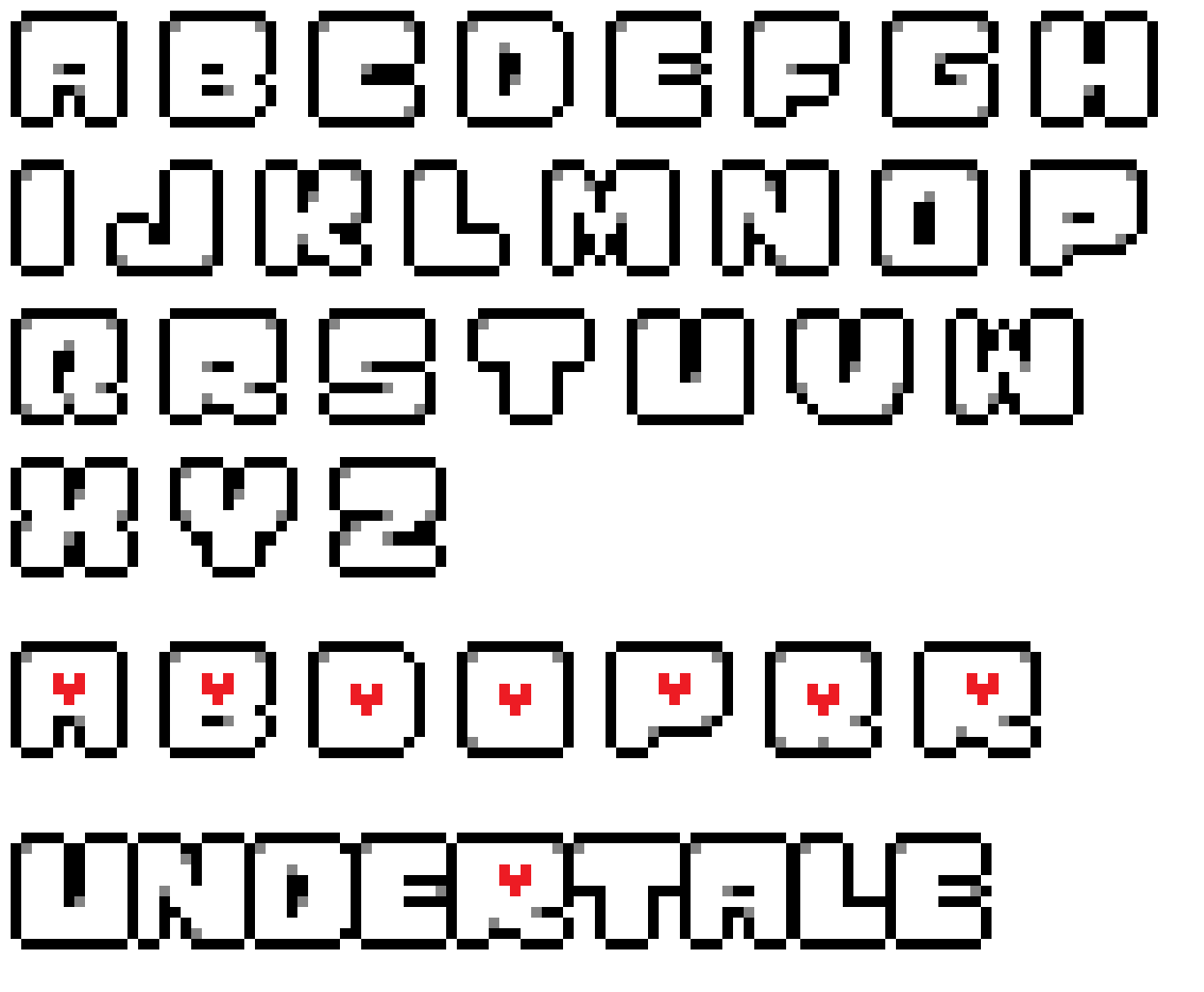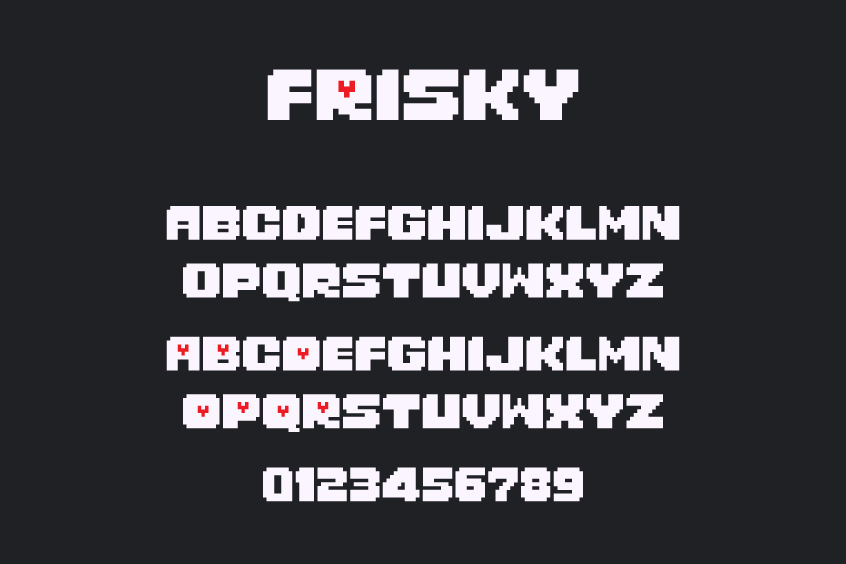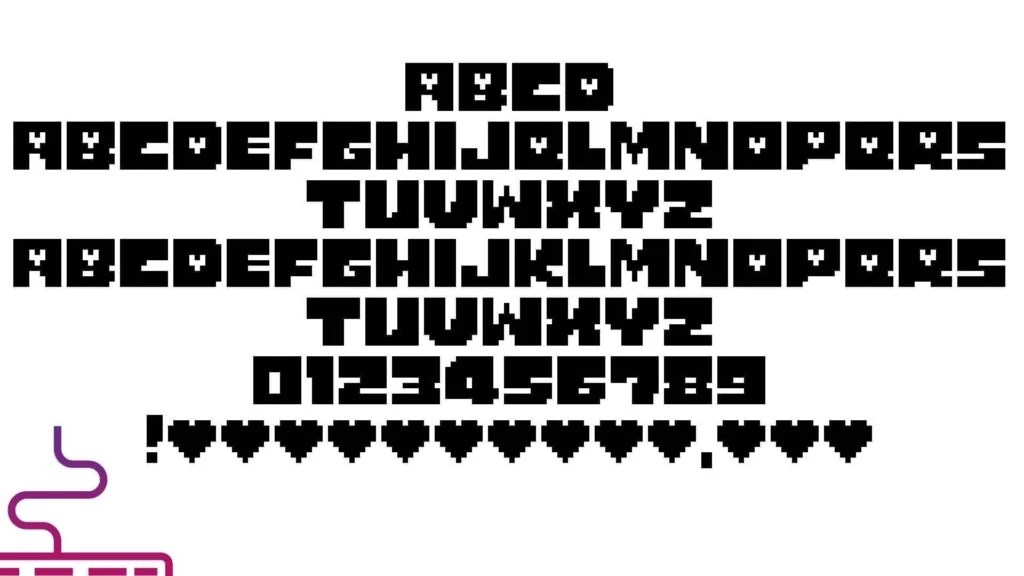
What Font Is Undertale Text In . The exact undertale fonts are, as follows: The font used for the logo of the undertale video game is very similar to a 3d font family the monster friend font. Determination mono web font is a undertale font and was created on dec 17, 2015. Since then, it has been downloaded 105,508. Undertale display font is a gaming font that is seen being used in many video games. It's pixelated because of the size it's set to. It says space every time you press space bar. Comment by 16th july 2020. Created on 18th june 2018. Papyrus size 12, scaled up: First produced in 2015 for the logo of the popular game “undertale,” it has since become a standard font for many online games. This is the font used when sans the sansational skeleton talks! Last edited on 6th december 2018. This font comes with two unique styles including fore and back. The font was produced for the first time in 2015.
Papyrus size 12, scaled up: First produced in 2015 for the logo of the popular game “undertale,” it has since become a standard font for many online games. The font used for the logo of the undertale video game is very similar to a 3d font family the monster friend font. Comment by 16th july 2020. It's pixelated because of the size it's set to. It says space every time you press space bar. The font was produced for the first time in 2015. Undertale display font is a gaming font that is seen being used in many video games. Created on 18th june 2018. The exact undertale fonts are, as follows:
What Font Is Undertale Text In The font used for the logo of the undertale video game is very similar to a 3d font family the monster friend font. Created on 18th june 2018. The font was produced for the first time in 2015. Comment by 16th july 2020. This font comes with two unique styles including fore and back. The font used for the logo of the undertale video game is very similar to a 3d font family the monster friend font. Since then, it has been downloaded 105,508. First produced in 2015 for the logo of the popular game “undertale,” it has since become a standard font for many online games. Which designed by a japanese designer harry Papyrus size 12, scaled up: The font offers several features and tools, such as the undertale logo font generator, which allows users to create different undertale logo designs without any license restrictions. Last edited on 6th december 2018. It's pixelated because of the size it's set to. Undertale display font is a gaming font that is seen being used in many video games. The exact undertale fonts are, as follows: This is the font used when sans the sansational skeleton talks!
Undertale Font Free Download » DaFontsPro What Font Is Undertale Text In The exact undertale fonts are, as follows: Undertale display font is a gaming font that is seen being used in many video games. The font offers several features and tools, such as the undertale logo font generator, which allows users to create different undertale logo designs without any license restrictions. Which designed by a japanese designer harry This is the. What Font Is Undertale Text In.
Monster Friend Undertale Logo Font on Behance Logo fonts, Undertale What Font Is Undertale Text In It says space every time you press space bar. The font was produced for the first time in 2015. The font used for the logo of the undertale video game is very similar to a 3d font family the monster friend font. Since then, it has been downloaded 105,508. First produced in 2015 for the logo of the popular game. What Font Is Undertale Text In.
How to make Undertale Text Boxes! YouTube What Font Is Undertale Text In First produced in 2015 for the logo of the popular game “undertale,” it has since become a standard font for many online games. Since then, it has been downloaded 105,508. This is the font used when sans the sansational skeleton talks! This font comes with two unique styles including fore and back. It's pixelated because of the size it's set. What Font Is Undertale Text In.
Undertale Font Used in the Logo & More! Free Download What Font Is Undertale Text In First produced in 2015 for the logo of the popular game “undertale,” it has since become a standard font for many online games. Determination mono web font is a undertale font and was created on dec 17, 2015. It says space every time you press space bar. The font used for the logo of the undertale video game is very. What Font Is Undertale Text In.
UNDERTALE Battle Font (download) by TheMisterNox on DeviantArt What Font Is Undertale Text In Which designed by a japanese designer harry The exact undertale fonts are, as follows: Last edited on 6th december 2018. The font was produced for the first time in 2015. First produced in 2015 for the logo of the popular game “undertale,” it has since become a standard font for many online games. The font used for the logo of. What Font Is Undertale Text In.
I made a thing on the undertale text box generator r/Undertale What Font Is Undertale Text In It's pixelated because of the size it's set to. The font was produced for the first time in 2015. Created on 18th june 2018. This font comes with two unique styles including fore and back. Papyrus size 12, scaled up: Comment by 16th july 2020. This is the font used when sans the sansational skeleton talks! First produced in 2015. What Font Is Undertale Text In.
Undertale Fonts Undertale Sans. Sansserif Font Superfamily, PNG What Font Is Undertale Text In Comment by 16th july 2020. This is the font used when sans the sansational skeleton talks! It's pixelated because of the size it's set to. Which designed by a japanese designer harry The font used for the logo of the undertale video game is very similar to a 3d font family the monster friend font. The exact undertale fonts are,. What Font Is Undertale Text In.
Undertale Font Download Free Font & Logo What Font Is Undertale Text In The font used for the logo of the undertale video game is very similar to a 3d font family the monster friend font. Determination mono web font is a undertale font and was created on dec 17, 2015. This font comes with two unique styles including fore and back. It says space every time you press space bar. First produced. What Font Is Undertale Text In.
Undertale Fonts Used / undertale text generator Tumblr Browse by What Font Is Undertale Text In Created on 18th june 2018. It's pixelated because of the size it's set to. Which designed by a japanese designer harry Since then, it has been downloaded 105,508. First produced in 2015 for the logo of the popular game “undertale,” it has since become a standard font for many online games. This is the font used when sans the sansational. What Font Is Undertale Text In.